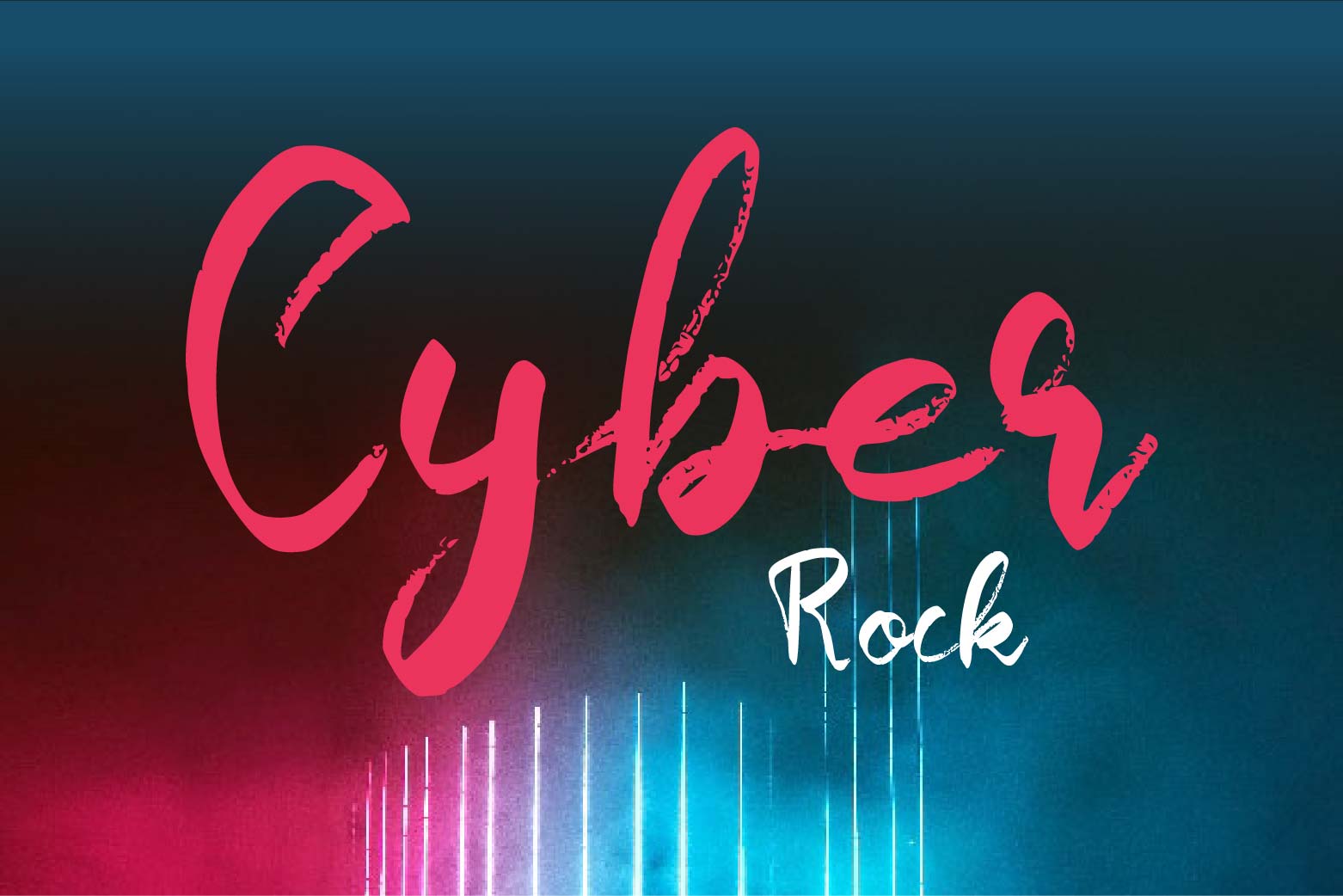
Cyber Rock Font
Cyber Rock Brush Font
It’s a brushed and beautiful script font. It has a modern yet whimsical style and it will undoubtedly immerse your designs into a magical world.